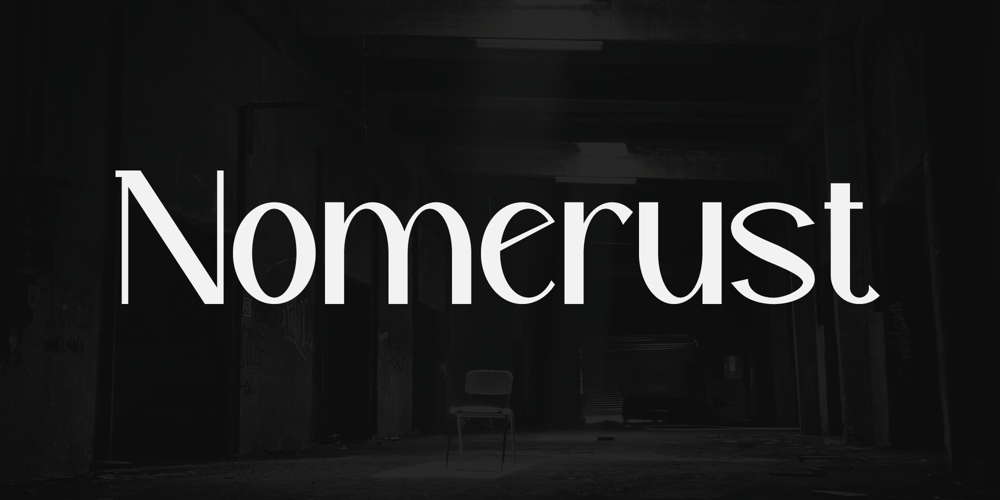
Nomerust Font Family was designed by Iwan Alwan and published by Artiveko. Nomerust contains 2 styles and family package options. Nomerust embraces the essence of femininity with its sleek serif design. Crafted with a minimalist concept in mind, this font radiates simplicity and charm.Perfectly suited for cosmetic products, paper bags, and fashion brands, Nomerust Font adds a touch of refined grace to any project. Its clean lines and graceful curves elevate branding materials, lending an air of sophistication and style.Whether adorning cosmetic packaging or gracing fashion labels, Nomerust Font captivates with its understated beauty. Embrace the allure of minimalism with Nomerust Font and let your brand shine with effortless elegance.